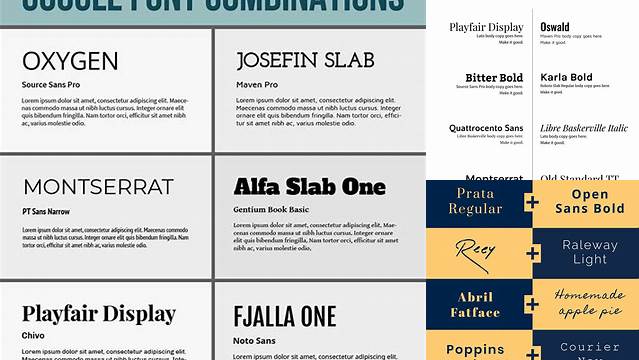
Modern Website Fonts: Best Google Font Combinations
H1 Heading: Best Google Font Combinations for a Modern Website
Choosing the right fonts for your website can feel like a daunting task, but it's crucial for creating a modern and engaging user experience. The typography you use significantly impacts readability, brand identity, and overall website aesthetics. Luckily, Google Fonts offers a vast library of free, high-quality fonts that can be combined in countless ways. In this article, we'll dive into the best Google Font combinations for a modern website, providing you with inspiration and guidance to make the perfect choice for your project. We will explore different categories, consider various design principles, and offer practical examples to help you elevate your website's typography game. So, whether you're a seasoned designer or just starting out, let's explore how to create a visually stunning and highly functional website with the right fonts!
H2 Heading: Understanding the Basics of Font Pairing
Before we jump into specific Google Font combinations, it’s essential to understand the basics of font pairing. Pairing fonts effectively involves considering various elements like contrast, hierarchy, and readability. A successful font pairing should create a visual harmony that enhances the user experience and reinforces your brand’s message. Think of font pairing as a conversation between two voices; they should complement each other without overshadowing one another. For example, you might pair a bold, attention-grabbing font for headings with a clean, legible font for body text. This contrast helps to create a clear visual hierarchy, guiding the reader through the content. On the other hand, using fonts that are too similar can create a monotonous and unengaging reading experience. So, let's break down some key principles to help you master the art of font pairing.
H3 Heading: The Importance of Contrast in Font Combinations
Contrast is a cornerstone of effective font pairing. The best Google Font combinations often leverage contrast to create visual interest and hierarchy. This means choosing fonts that differ significantly in terms of weight, style, and size. For instance, pairing a serif font with a sans-serif font is a classic way to achieve contrast. A serif font, characterized by the small strokes or “feet” at the end of letters, often conveys a sense of tradition and formality. On the other hand, sans-serif fonts, which lack these strokes, tend to appear more modern and clean. By combining these two types of fonts, you can create a balanced and visually appealing design. Another way to achieve contrast is by varying the font weight. A bold heading paired with a light body text can effectively draw the reader's attention while maintaining readability. Remember, the goal is to create a visual distinction that enhances the user experience and guides them through your content.
H3 Heading: Creating Visual Hierarchy with Typography
Visual hierarchy is critical for structuring your content and guiding the reader's eye. The best Google Font combinations play a crucial role in establishing this hierarchy. By using different fonts for headings and body text, you can signal the importance and relationship between various sections of your content. Typically, headings are set in larger, bolder fonts to immediately grab attention and indicate the start of a new section. Subheadings, in turn, might use a slightly smaller or lighter font to further break down the content into manageable chunks. The body text should be highly readable and unobtrusive, allowing the content to take center stage. Think of your website's typography as a map for your readers; it should guide them seamlessly through the information you want to convey. A well-defined visual hierarchy not only improves the aesthetics of your site but also enhances its usability and user engagement.
H3 Heading: Readability: The Key to User Engagement
While aesthetics are important, readability should always be a top priority when choosing Google Font combinations. If your text is difficult to read, visitors are likely to leave your site, regardless of how beautiful it looks. The best font combinations prioritize clarity and legibility, ensuring that your content is accessible and enjoyable to read. Factors like font size, line height, and letter spacing all play a role in readability. For body text, it's generally best to choose fonts that are clean and uncluttered, with sufficient spacing between letters and lines. Avoid overly decorative or stylized fonts for large blocks of text, as these can strain the reader's eyes. When selecting fonts, consider testing them on different devices and screen sizes to ensure they remain legible. A highly readable website keeps visitors engaged and encourages them to explore your content further.
H2 Heading: Serif and Sans-Serif Combinations
One of the most popular approaches to font pairing is combining serif and sans-serif fonts. This pairing strategy leverages the contrast between the traditional and the modern, creating a balanced and visually appealing design. Serif fonts, with their classic and elegant appearance, often work well for headings, while sans-serif fonts provide a clean and contemporary feel for body text. The contrast between these two font styles helps to establish a clear visual hierarchy and enhance readability. There are numerous Google Font combinations that exemplify this approach, each offering a unique blend of style and functionality. Let's explore some specific examples to illustrate the power of serif and sans-serif pairings.
H3 Heading: Merriweather and Open Sans
Merriweather and Open Sans is a classic Google Font combination that strikes a perfect balance between tradition and modernity. Merriweather, a serif font, is highly readable and elegant, making it an excellent choice for headings and titles. Its slightly condensed letterforms and sturdy serifs give it a strong presence without being overwhelming. On the other hand, Open Sans is a clean and versatile sans-serif font that excels in body text. Its neutral and friendly appearance ensures that your content is easy to read and understand. Together, Merriweather and Open Sans create a harmonious contrast that enhances the overall readability and visual appeal of your website. This pairing is particularly well-suited for websites with a focus on content, such as blogs, news sites, and online magazines.
H3 Heading: Playfair Display and Montserrat
For a touch of elegance and sophistication, consider pairing Playfair Display with Montserrat. Playfair Display is a stylish serif font with a high contrast between thick and thin strokes, giving it a refined and luxurious feel. It's best used for headings and titles where you want to make a statement. Montserrat, a geometric sans-serif font, provides a clean and modern counterpart for body text. Its balanced letterforms and excellent readability make it a versatile choice for various applications. The combination of Playfair Display and Montserrat is perfect for websites that aim to convey a sense of class and professionalism, such as those in the fashion, design, or luxury industries. This Google Font combination brings together elegance and clarity, ensuring a sophisticated and user-friendly design.
H3 Heading: Arvo and Lato
Arvo and Lato form a robust and readable Google Font combination. Arvo, a slab-serif font, has a strong and confident character, making it ideal for headings that need to stand out. Its geometric design and distinctive serifs give it a unique presence. Lato, a sans-serif font, is known for its semi-rounded details and friendly appearance, which makes it a great choice for body text. Its readability and versatility ensure that your content is easy to digest. This pairing is particularly well-suited for websites that need to convey a sense of stability and trustworthiness, such as those in the business, technology, or education sectors. The contrast between Arvo's strength and Lato's friendliness creates a balanced and engaging design.
Choosing the best Google Font combinations for your website is an important step in creating a modern and engaging online presence. By understanding the principles of font pairing, exploring different font styles, and utilizing helpful tools and resources, you can create a typographic design that enhances your brand identity and improves user experience. Whether you're aiming for a classic, modern, or technical vibe, the right fonts can help you achieve your goals and make your website stand out. So, go ahead and experiment, explore, and discover the perfect font combinations for your next project!